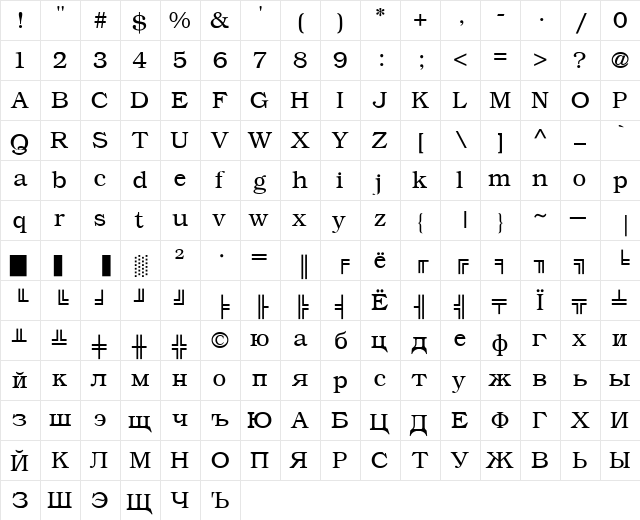
ER Bukinist KOI8-R Regular
Design Context for ER Bukinist KOI8-R Typeface
ER Bukinist KOI8-R is a composed and adaptable typeface that performs quietly and consistently across a wide range of design contexts.